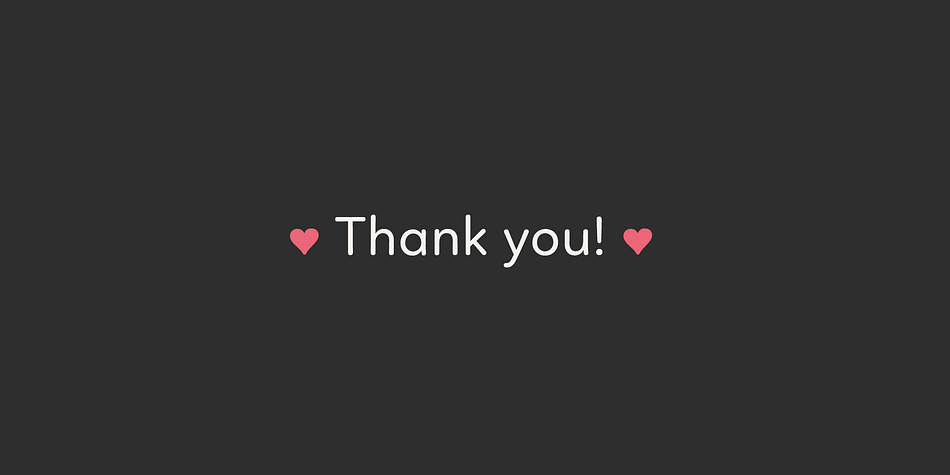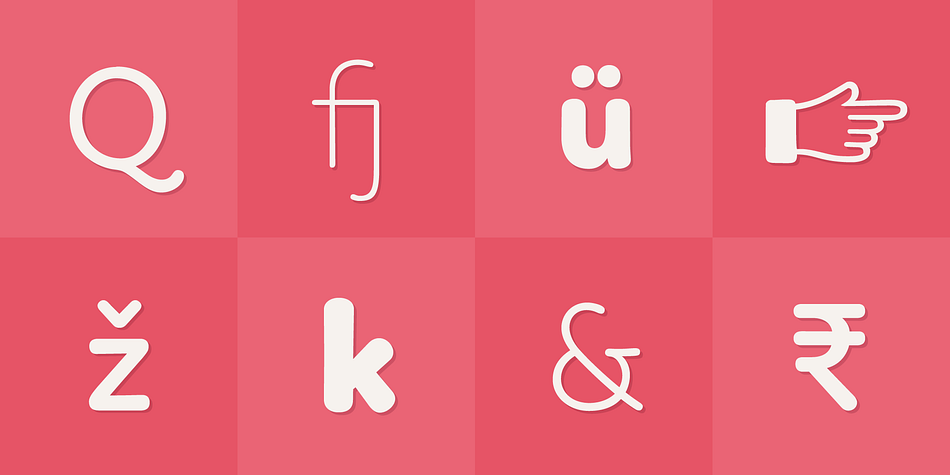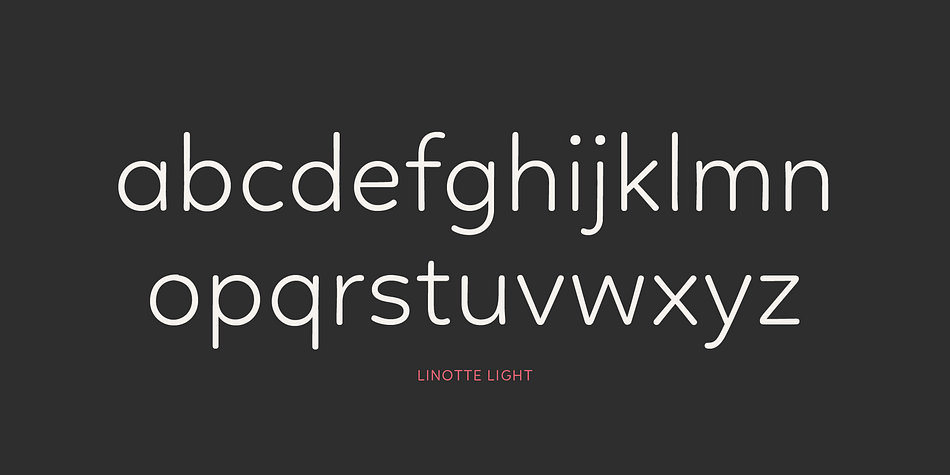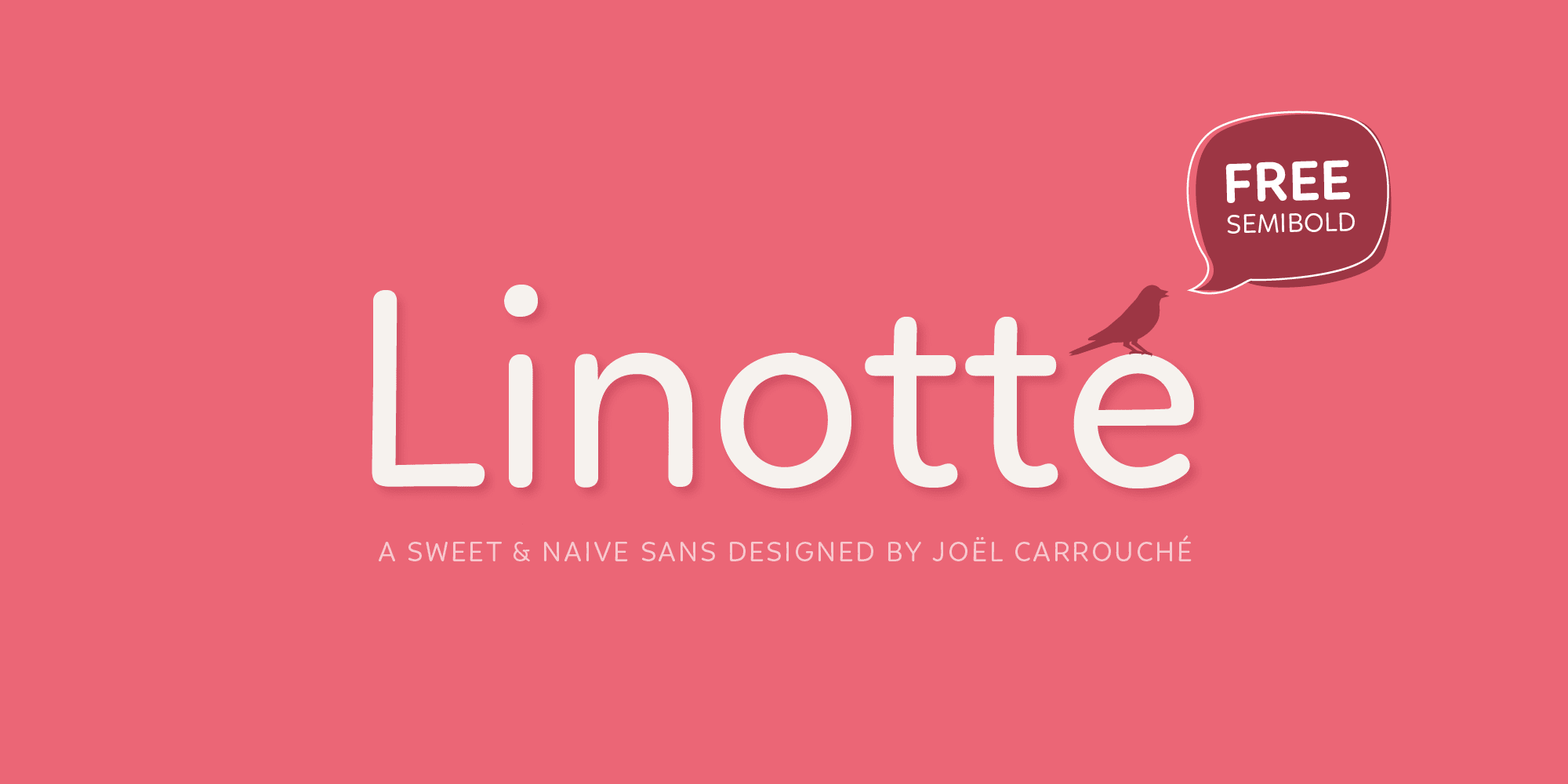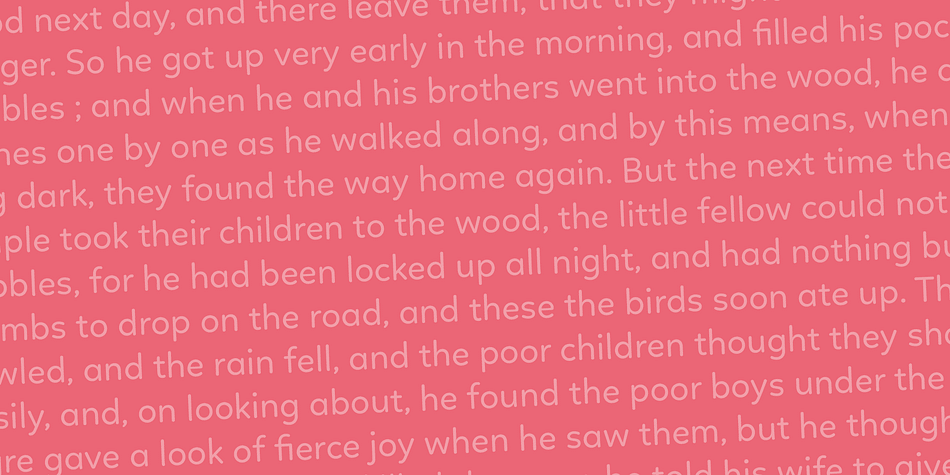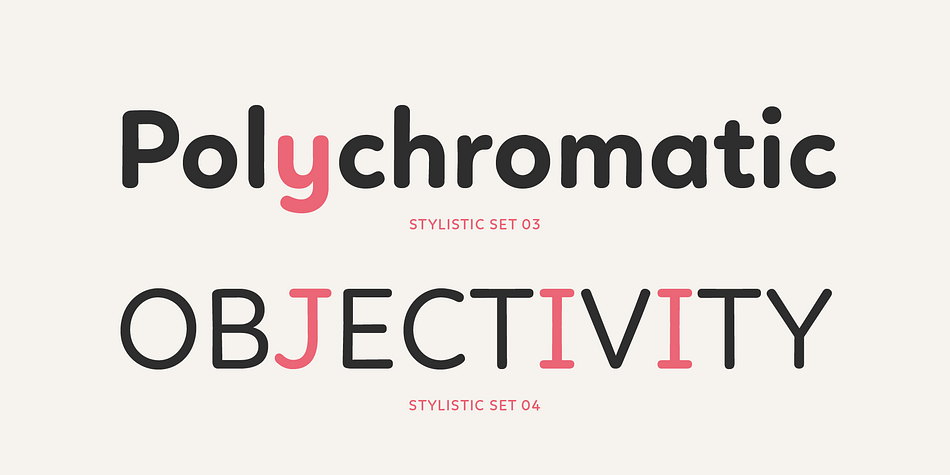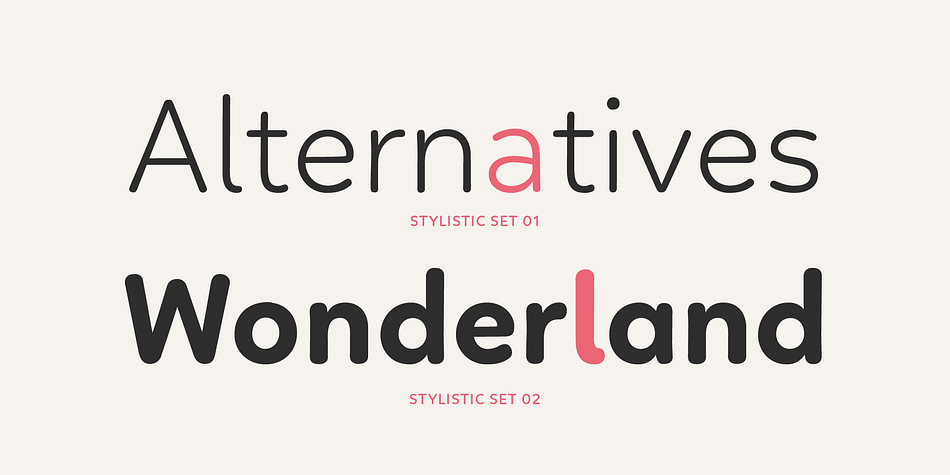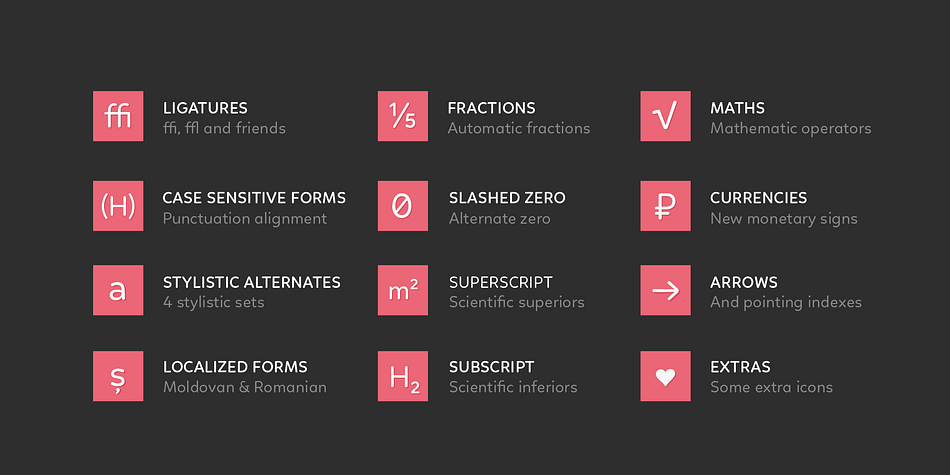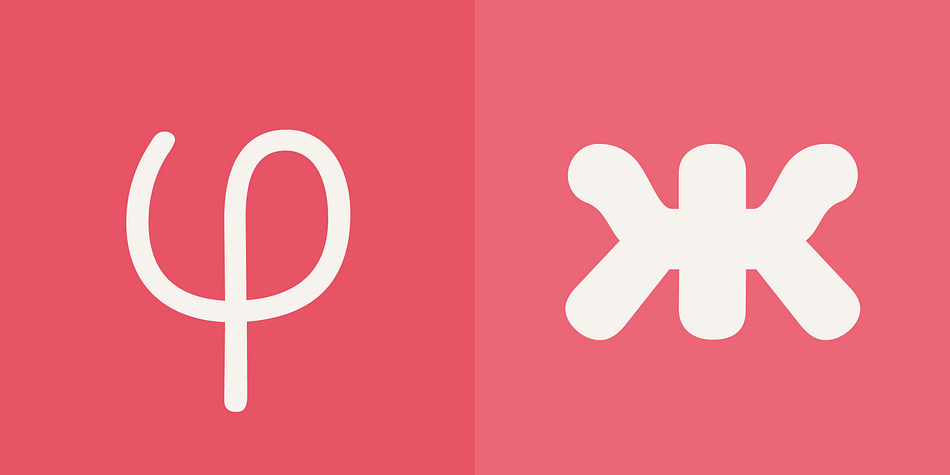
Linotte is a sans serif font family. This typeface has five styles and was published by JCfonts.
Linotte is a rounded sans family with good vibes, designed by Joël Carrouché. Slight irregularities give the typeface a warm and naive look, while the solid geometric construction allows good legibility in long texts and small sizes. Linotte is ideal to set texts for food or children related products, and anything that needs to convey a friendly feeling.
The fonts, provided in OpenType format, include diacritics for most European languages, a set of arrows & icons, and a variety of advanced features like stylistic alternates, case-sensitive forms, superscript, etc.